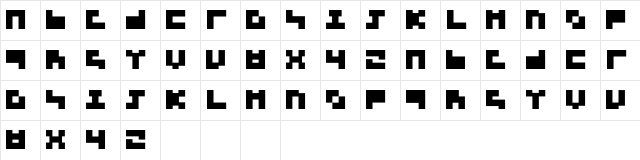
Complete 3x3 regular glyph index. Displaying only characters natively supported by 3x3 regular font.
3x3 is a composed and adaptable typeface that performs quietly and consistently across a wide range of design contexts.